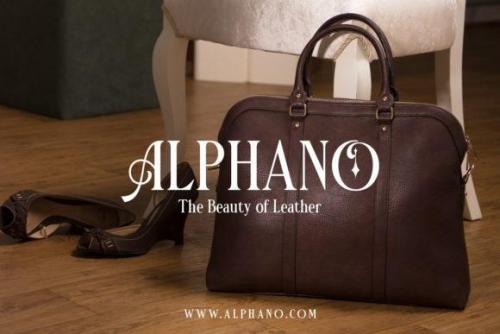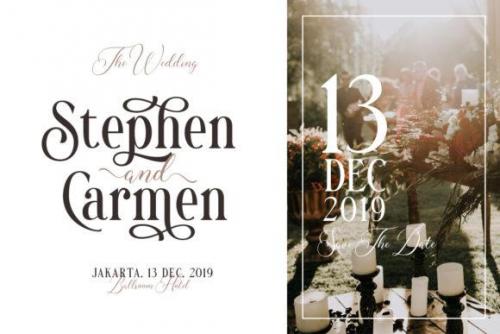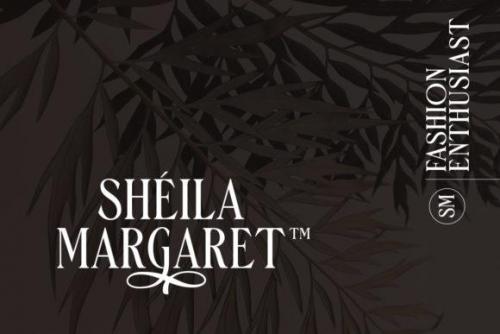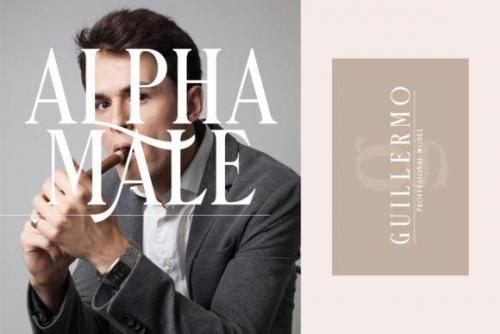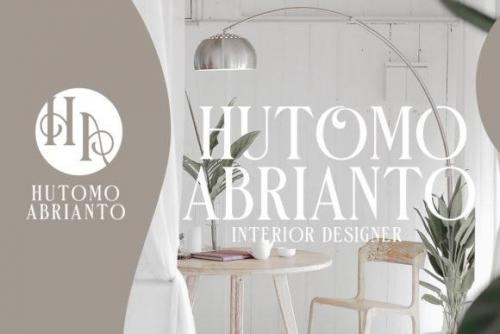
Danielle Harris is an elegant display font with classy style. It will add a romantic touch to any crafting project!
They works perfect for you who needs a typeface for headline, logotype, apparel, invitation, branding, packaging, advertising etc. This typeface is comes in uppercase, lowercase, punctuation, symbols, numerals, stylistic set alternate, ligatures, etc also support multilingual.